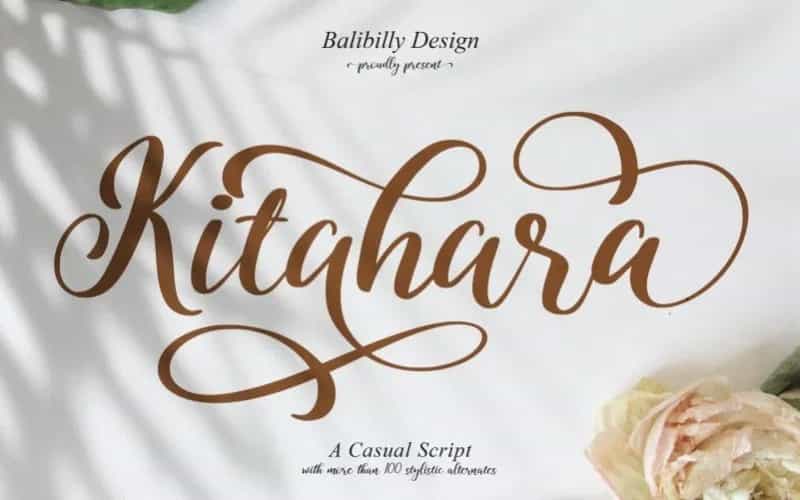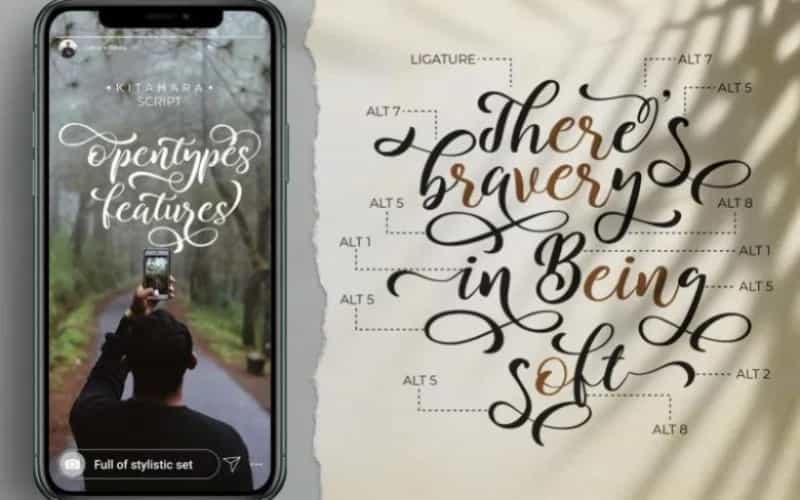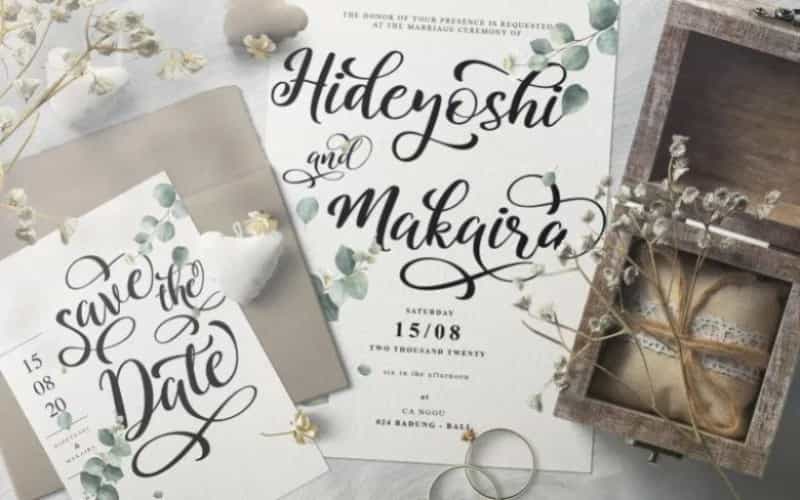
Kitahara is a unique and elegant, original and very universal calligraphy for the title font. The concept derives from the esthetic of Japan as a country. Kitahara, allows you to make impressive hand-made typography in a matter of minutes.